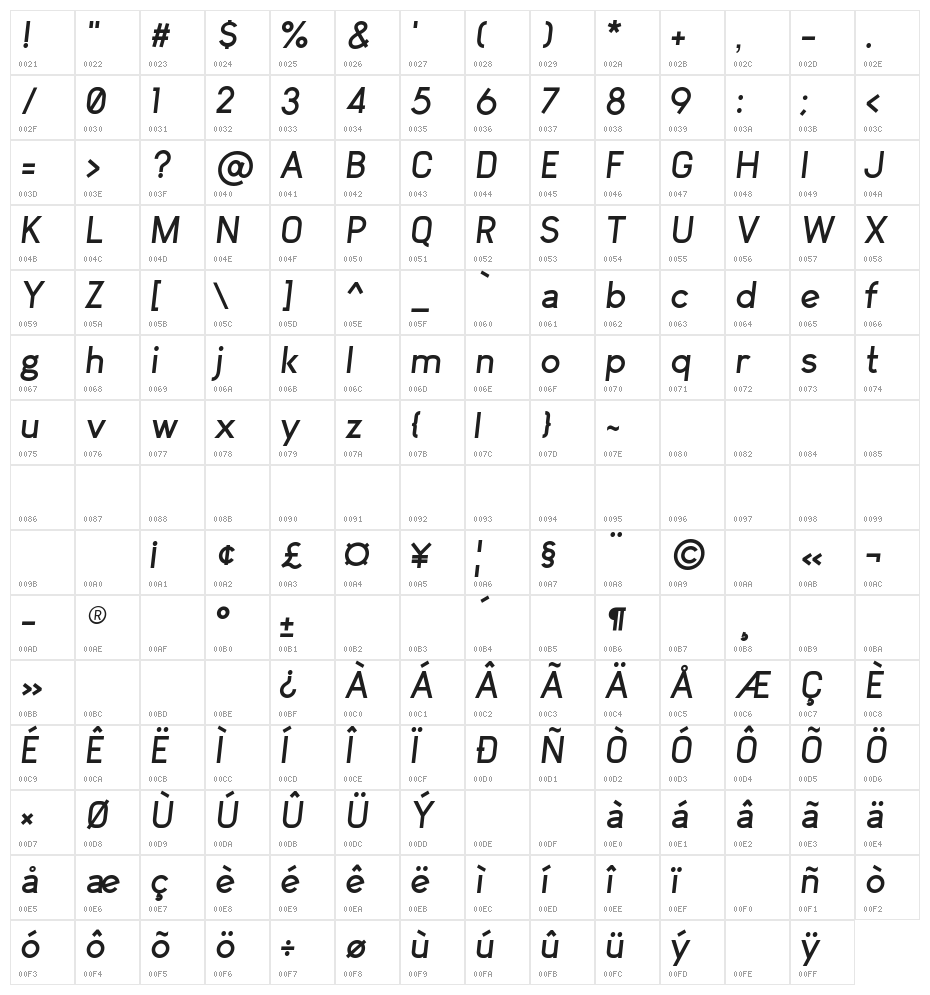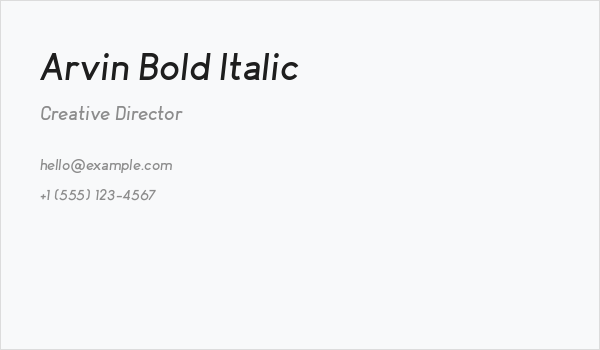
Arvin Bold Italic Font
Arvin Bold Italic Description
This font features a bold and italic style, combining strength with a dynamic slant. The characters are clean and modern, with a slight forward tilt that adds a sense of motion and urgency. The uppercase letters are tall and commanding, while the lowercase letters maintain a consistent flow. Numbers are clear and distinct, making them easily readable. The special characters are well-defined, ensuring versatility in various applications. The overall design is sleek and contemporary, suitable for a wide range of design needs.
| Use Case | Headlines, Logos, Advertising |
| Proposed Projects | Ideal for branding, advertising, headlines, and digital media projects. |